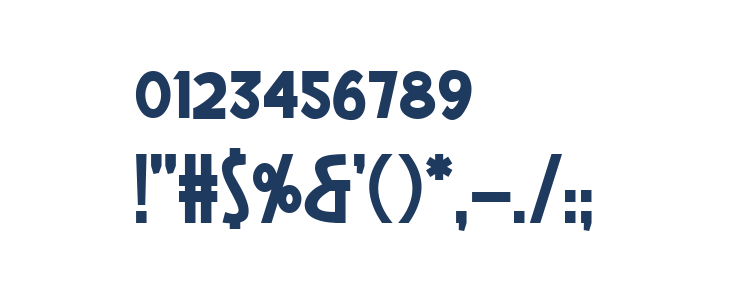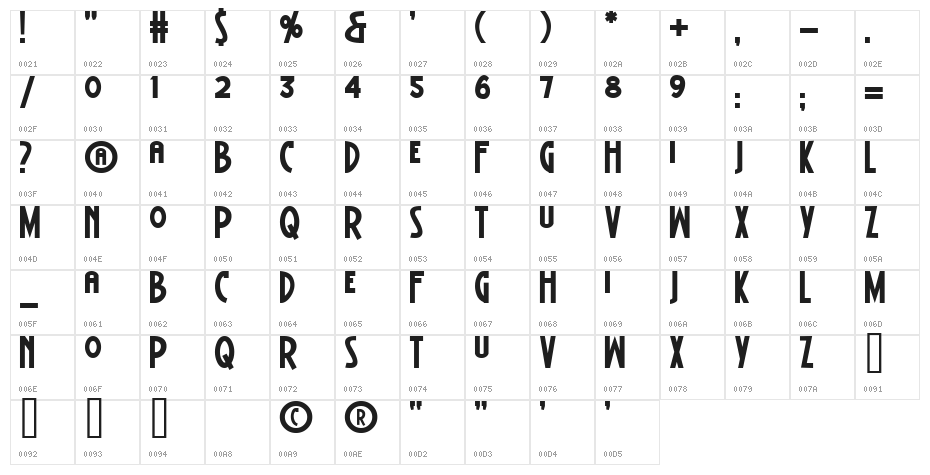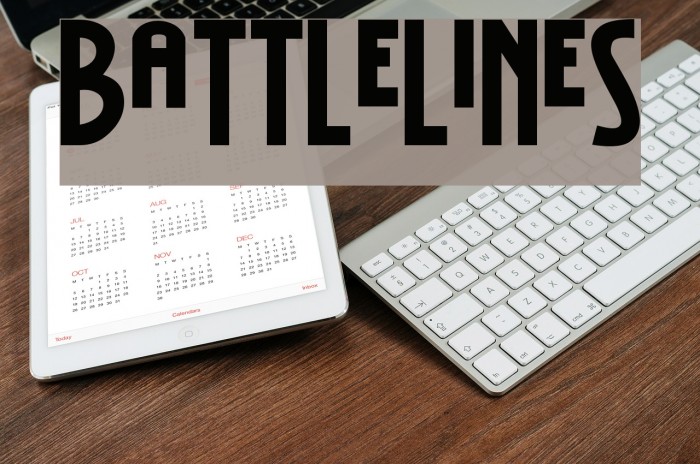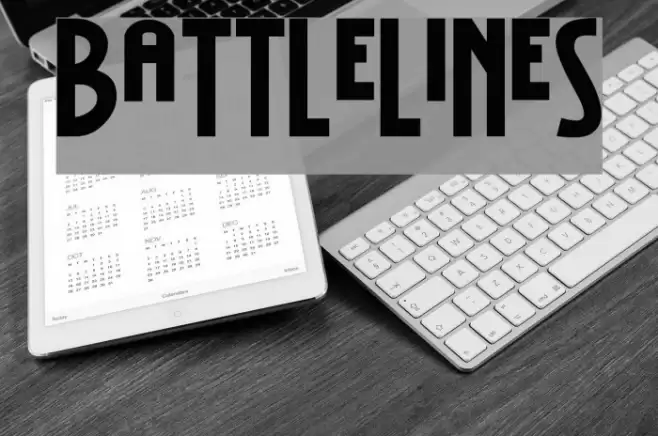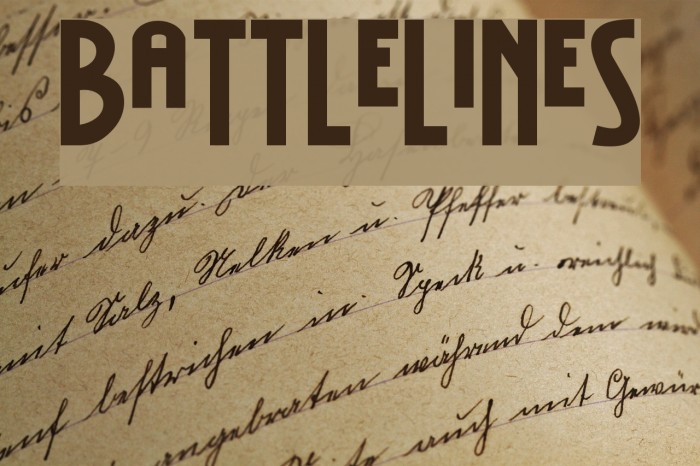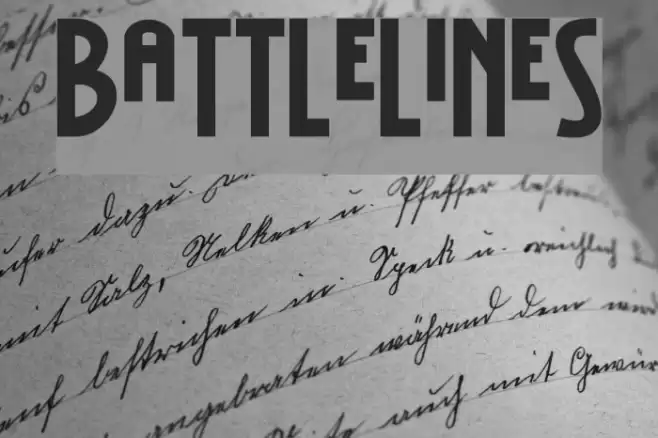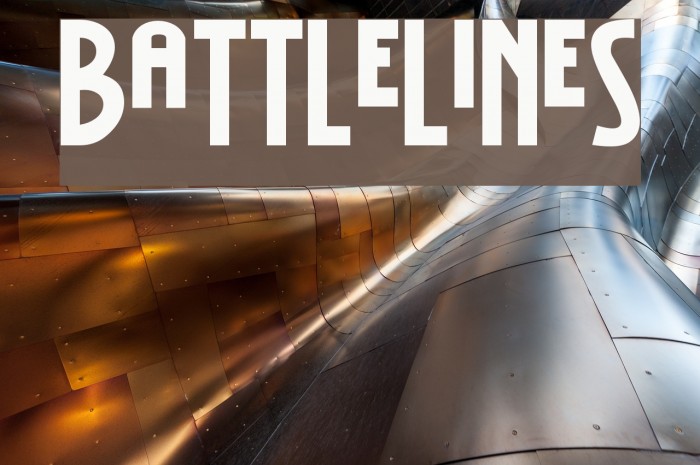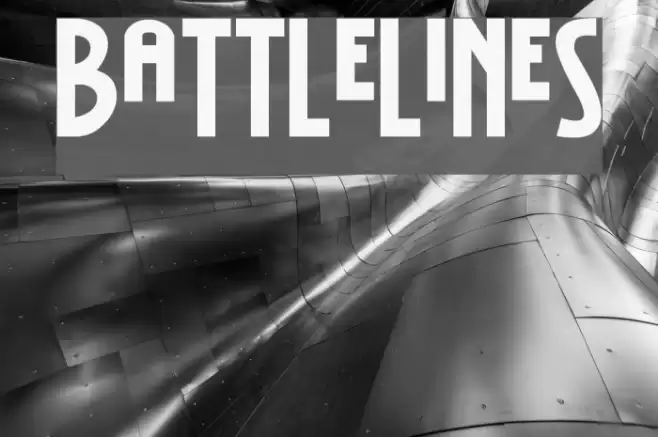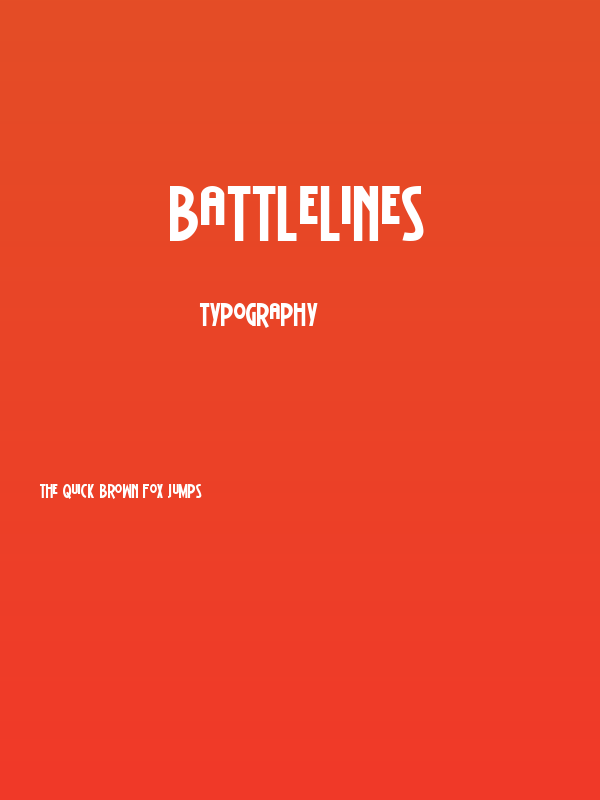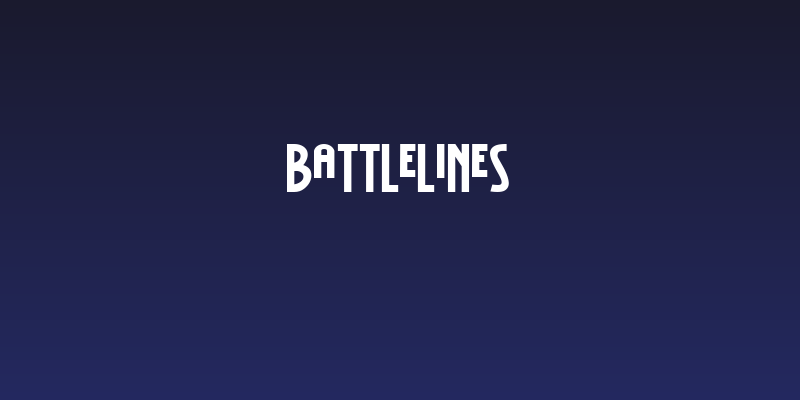
BattleLines Font
BattleLines Description
This font features bold, geometric letterforms with a strong presence, characterized by sharp angles and a uniform stroke width. The uppercase letters are particularly striking, with a modern and assertive style that commands attention. The lowercase letters maintain the same boldness, ensuring consistency across text. Numbers and special characters are crafted with the same attention to detail, making them easily readable and visually appealing. The overall design is clean and impactful, suitable for making a bold statement in any design project.
| Proposed Projects | Ideal for posters, headlines, branding, and any project requiring a strong visual impact. |